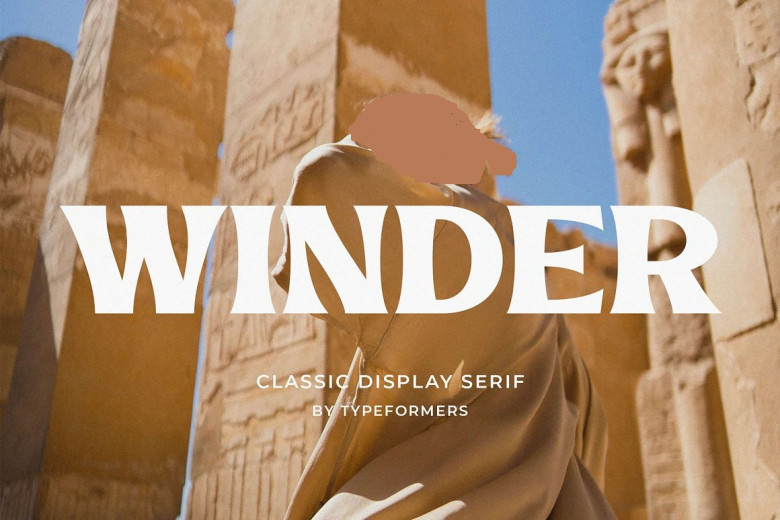
Winder Font
Winder Classic Display Serif is an eye-catching font suitable for modern use in headings, logos and advertising in magazines, product packaging or invitations.
Winder Classic Display Serif Font